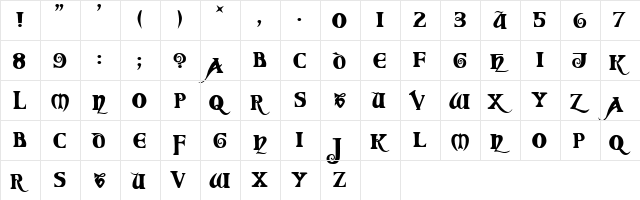
Coverack Regular
Design Context for Coverack Typeface
Coverack is a composed and adaptable typeface that performs quietly and consistently across a wide range of design contexts.